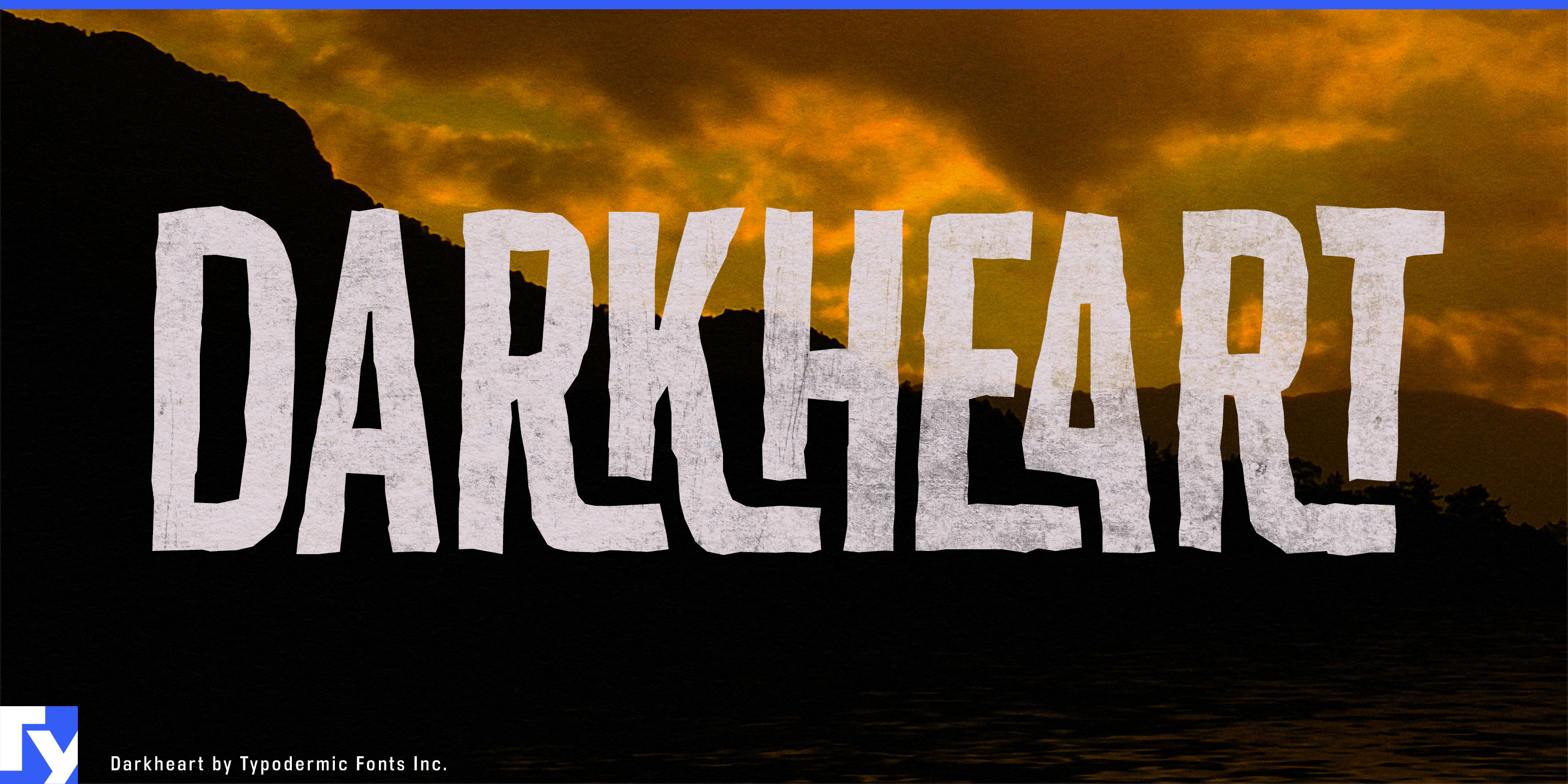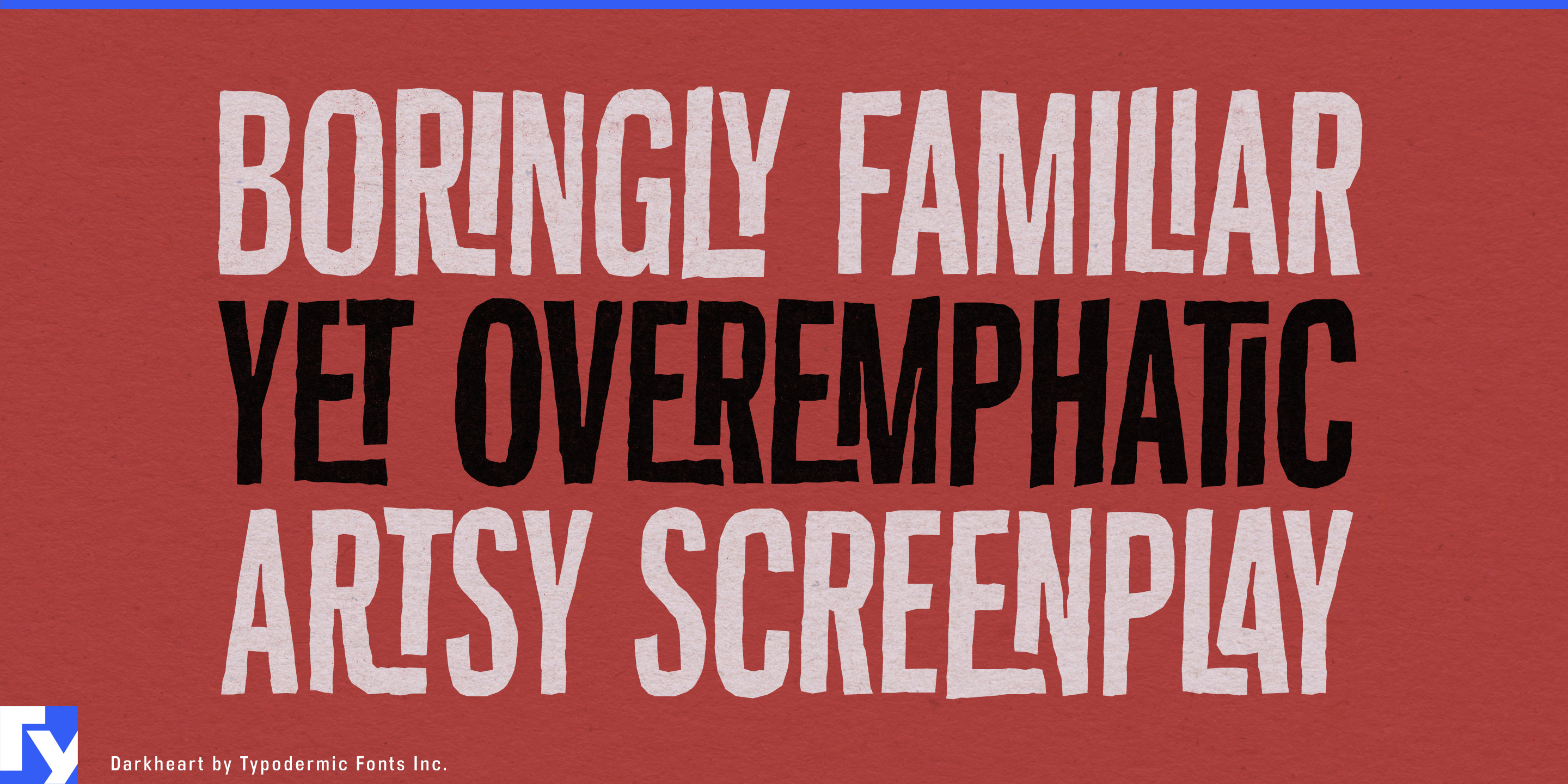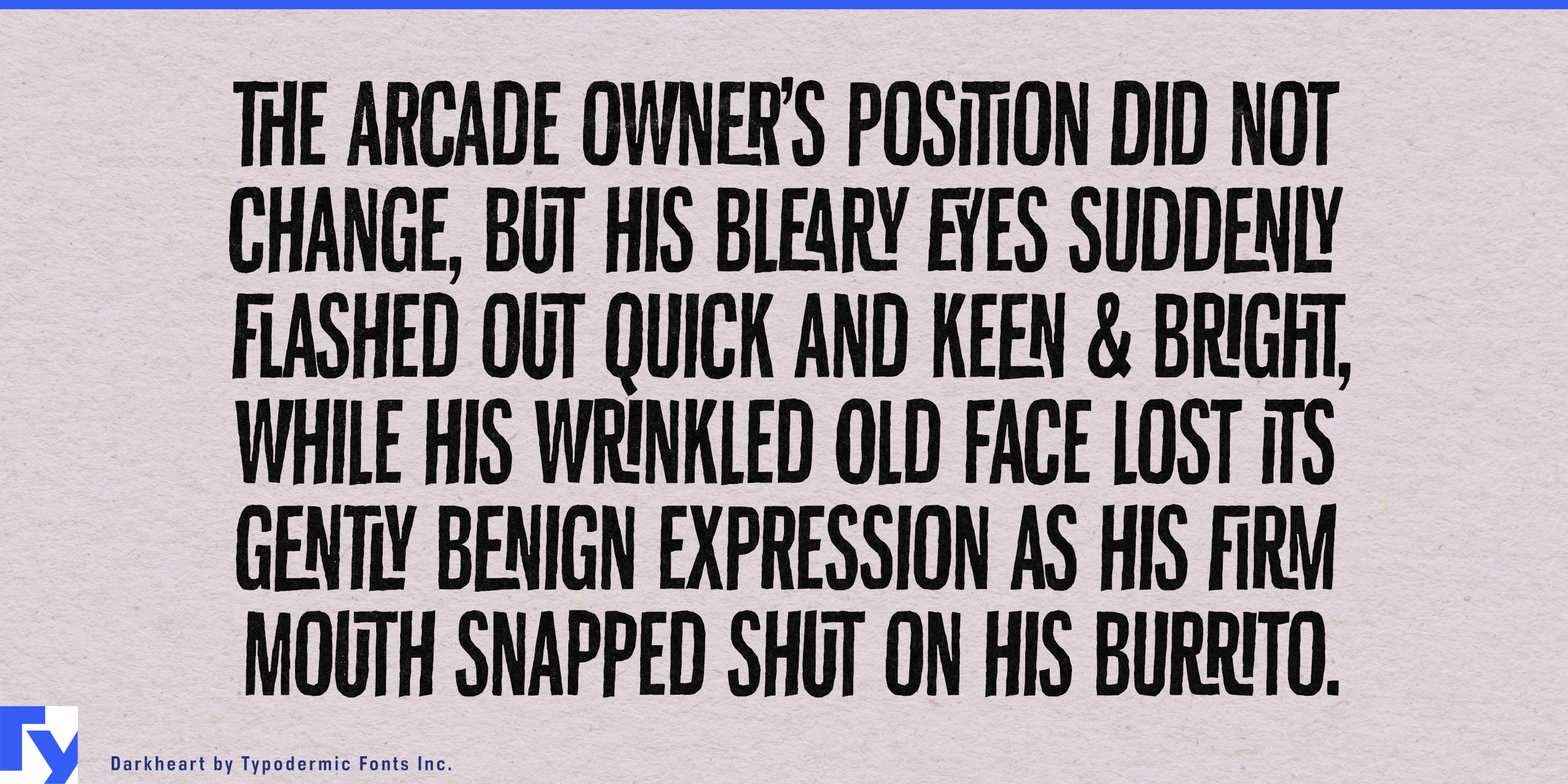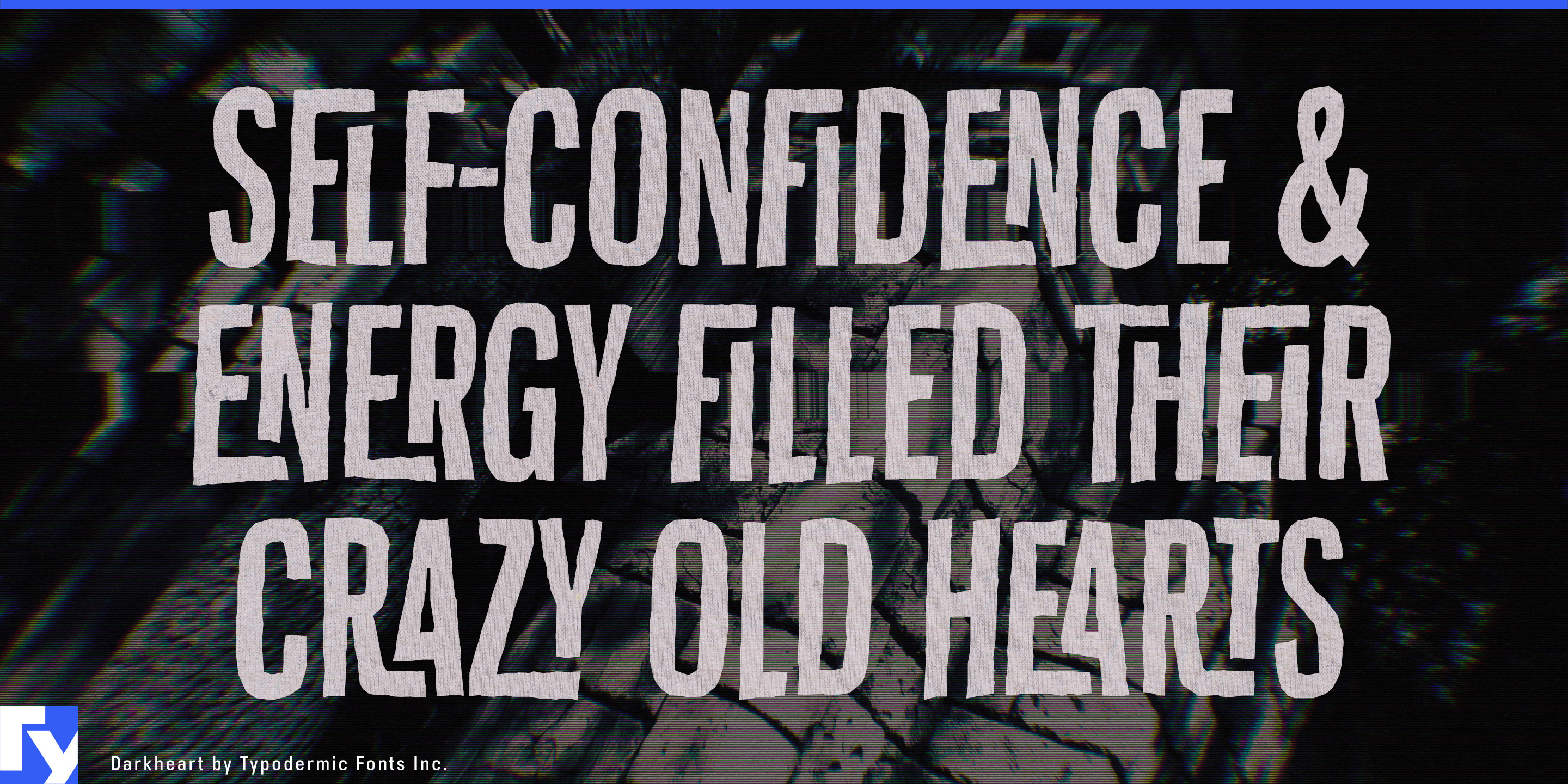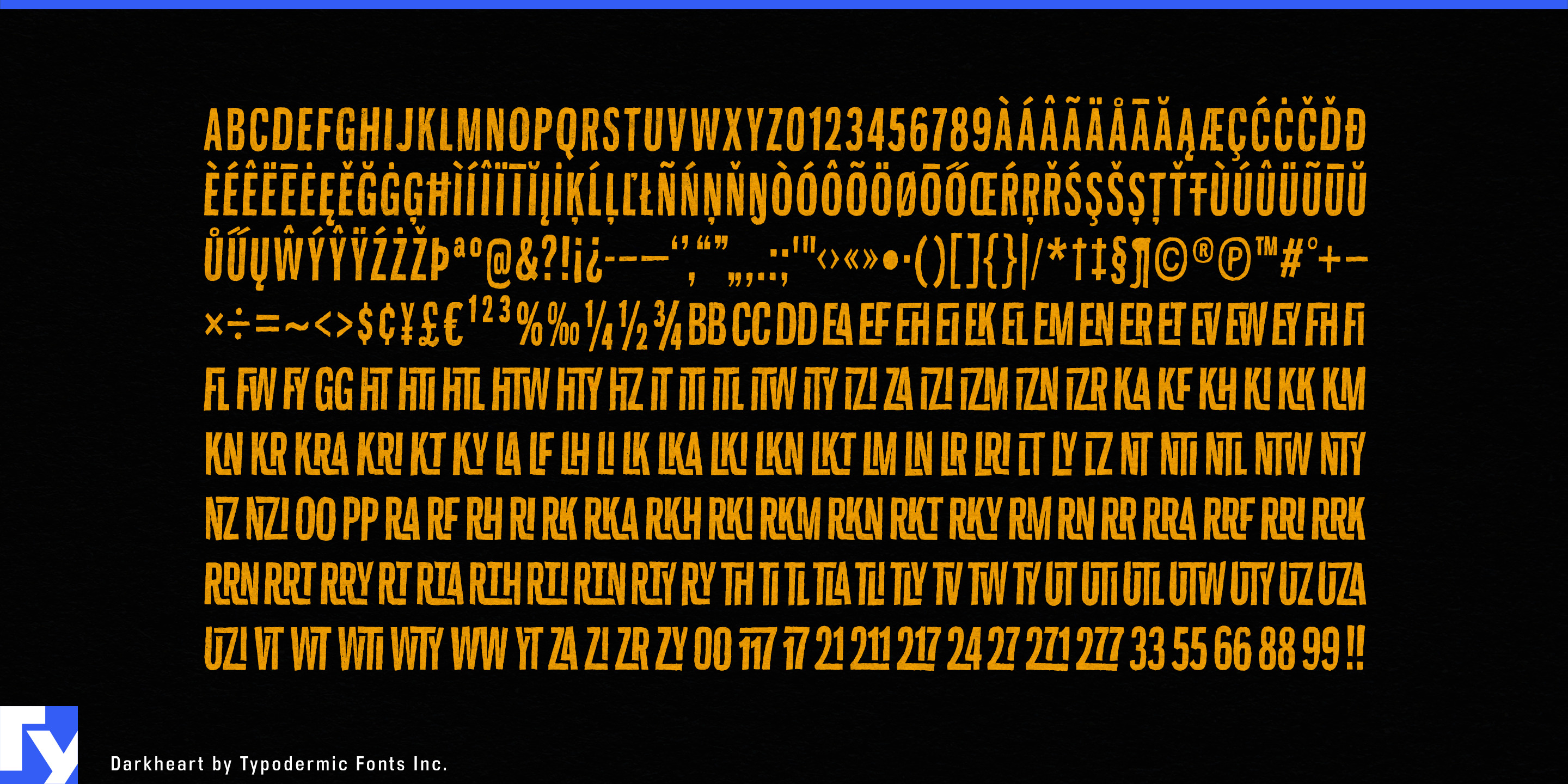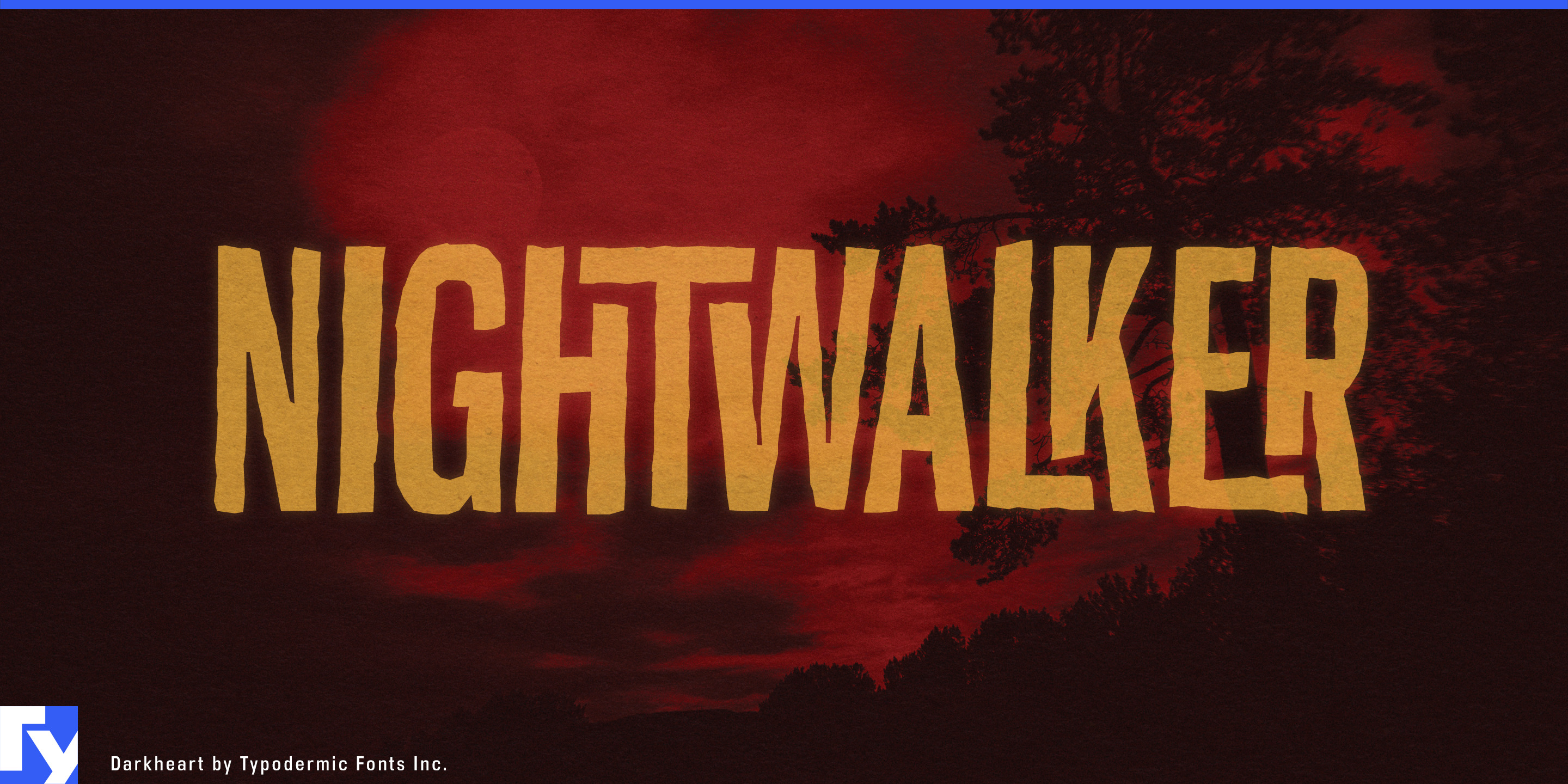
Darkheart
Darkheart is an all-caps horror typeface drawn in tall, crooked strokes that look cut from paper and fitted together by hand. Its natural setting is 1960s drive-in cinema: vampire castles, radioactive monsters, alien invasions, haunted laboratories, and trailers promising something unspeakable after midnight. It gives horror film posters, streaming thumbnails, trailer titles, comic mastheads, paperback covers, and VHS or Blu-ray reissues the compressed urgency of a hand-built title card.
Halloween provides Darkheart with an entire season of work. Haunted-house posters, maze signs, ghost-tour advertisements, escape-room identities, costume-party invitations, horror-convention schedules, and amusement-park fright nights all benefit from lettering that announces the premise immediately. Because Darkheart does not depend on dripping blood or gothic ornament, colour and illustration can move it from genuine menace to campy monsters, spooky children’s events, and playful seasonal packaging.
Its cut-paper tension also works beyond conventional horror. True-crime podcasts, cult documentaries, cryptid investigations, paranormal series, urban-legend anthologies, and psychological thrillers can use Darkheart to suggest unstable evidence or a headline assembled in a hurry. B-movie science fiction belongs in the same visual world, particularly stories involving mutant creatures, rogue experiments, Cold War paranoia, and badly supervised spacecraft.
Narrow proportions allow surprisingly long titles to fit into compact poster panels, book covers, video frames, and package labels. Uneven widths, skewed verticals, blunt corners, and shifting stroke density prevent each line from settling into a mechanical rhythm. An extensive collection of built-in ligatures joins common letter combinations into crooked interlocking shapes, giving words the fitted appearance of custom lettering. Short blocks of condensed capitals remain cohesive enough for trailer cards, ominous warnings, episode blurbs, and comic narration.